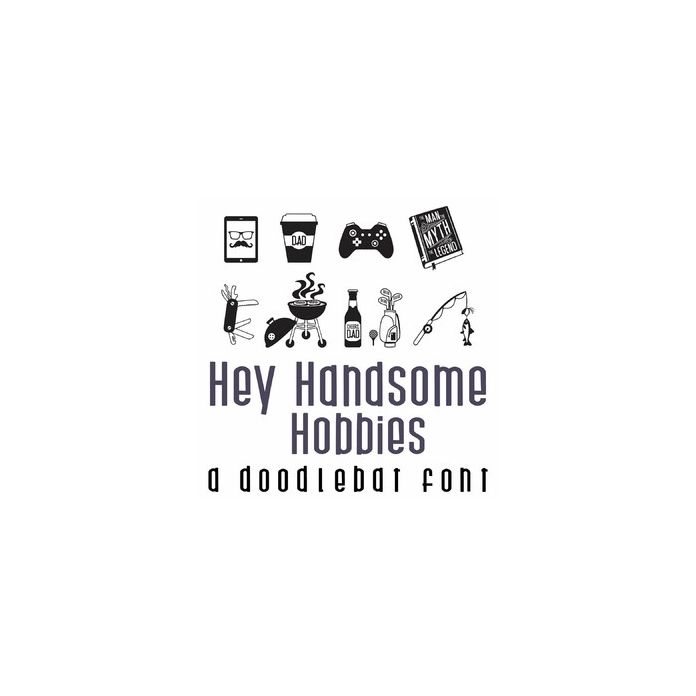
Hey Handsome Hobbies Doodlebat Font
This doodlebat font features 26 handsome Dad hobbies, perfect for Father's Day, crafts, gifts, planner stickers, scrapbook pages and more!